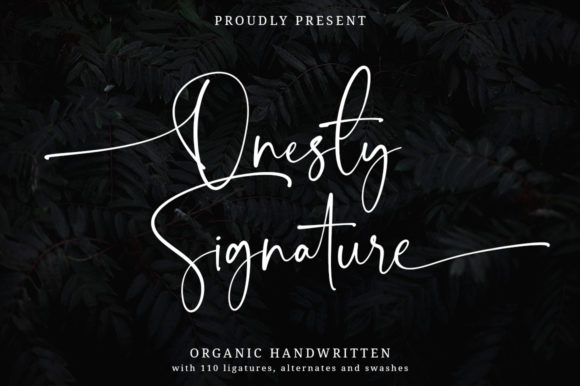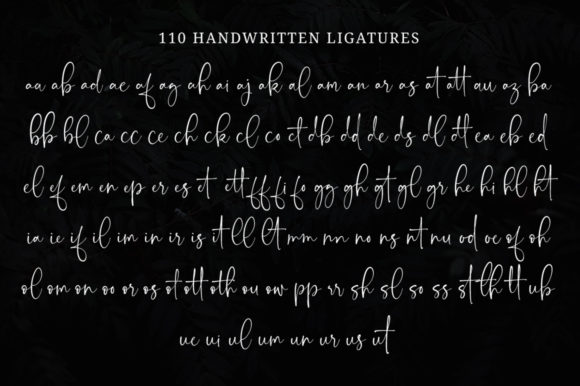
About Onesty Signature Font
Onesty Signature is a captivating and sophisticated handwritten font that exudes elegance and timelessness. With its flowing and graceful strokes, this font adds a touch of sophistication to your designs and evokes a sense of luxury and class.
The uniqueness of Onesty Signature lies in its completely different style. The letters have a distinct and refined appearance, showcasing the artistry of handcrafted calligraphy. Each stroke is carefully crafted to create a harmonious and visually pleasing composition.
By using Onesty Signature, you can create spectacular designs that leave a lasting impression. From logos and branding materials to wedding invitations, certificates, and other formal documents, this font adds a touch of class and refinement to any project.
The versatility of Onesty Signature allows it to be used in a variety of design contexts. Its flowing and elegant style makes it suitable for both digital and print designs. Whether you’re working on a website, social media graphics, packaging, or editorial layouts, Onesty Signature can elevate your designs and create a sense of sophistication.
With its PUA encoding, Onesty Signature offers easy access to a wide range of glyphs and swashes. This allows you to customize your designs and add decorative elements to enhance the overall aesthetic.
Fall in love with Onesty Signature and let its timeless beauty inspire your creativity. Experiment with different letter combinations, alternate characters, and swashes to create unique and stunning designs that truly stand out. The font’s elegance and versatility make it a valuable asset for designers seeking to evoke a sense of luxury and sophistication in their work.
In summary, Onesty Signature is an elegant and flowing handwritten font that adds a touch of sophistication and timelessness to your designs. Its completely different style and PUA encoding offer endless possibilities for customization and creativity. Embrace the beauty of Onesty Signature and create spectacular designs that leave a lasting impression.